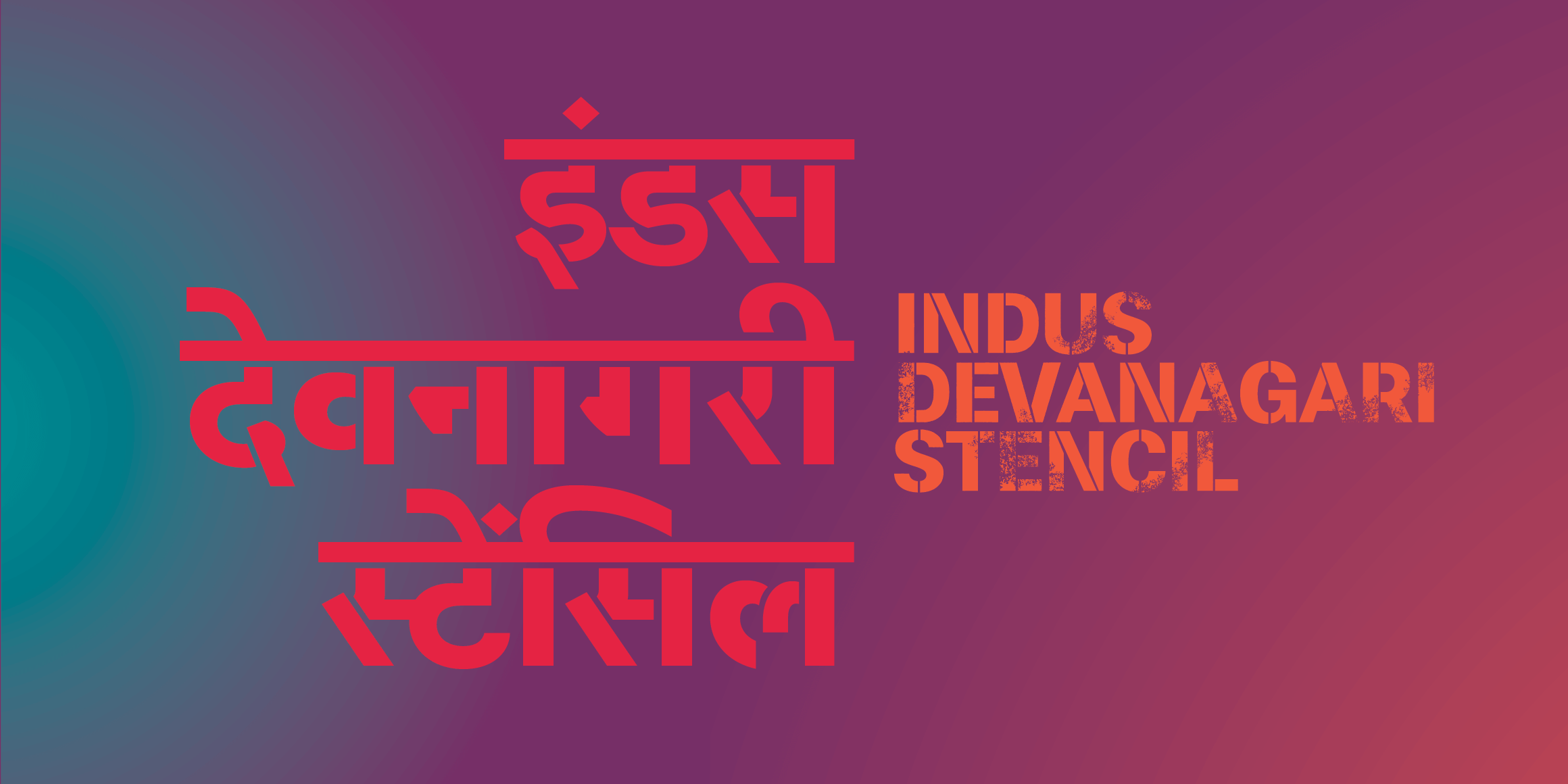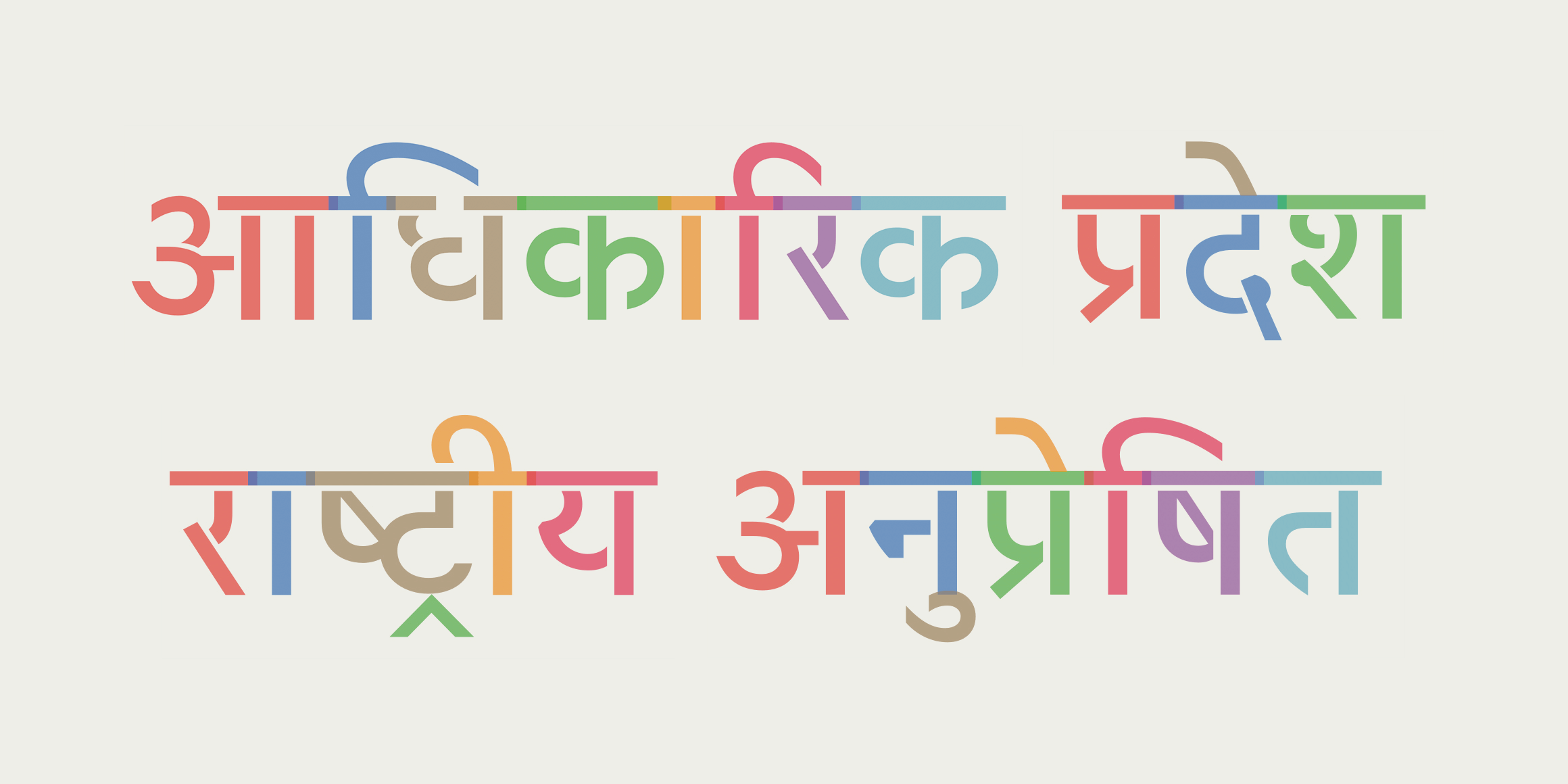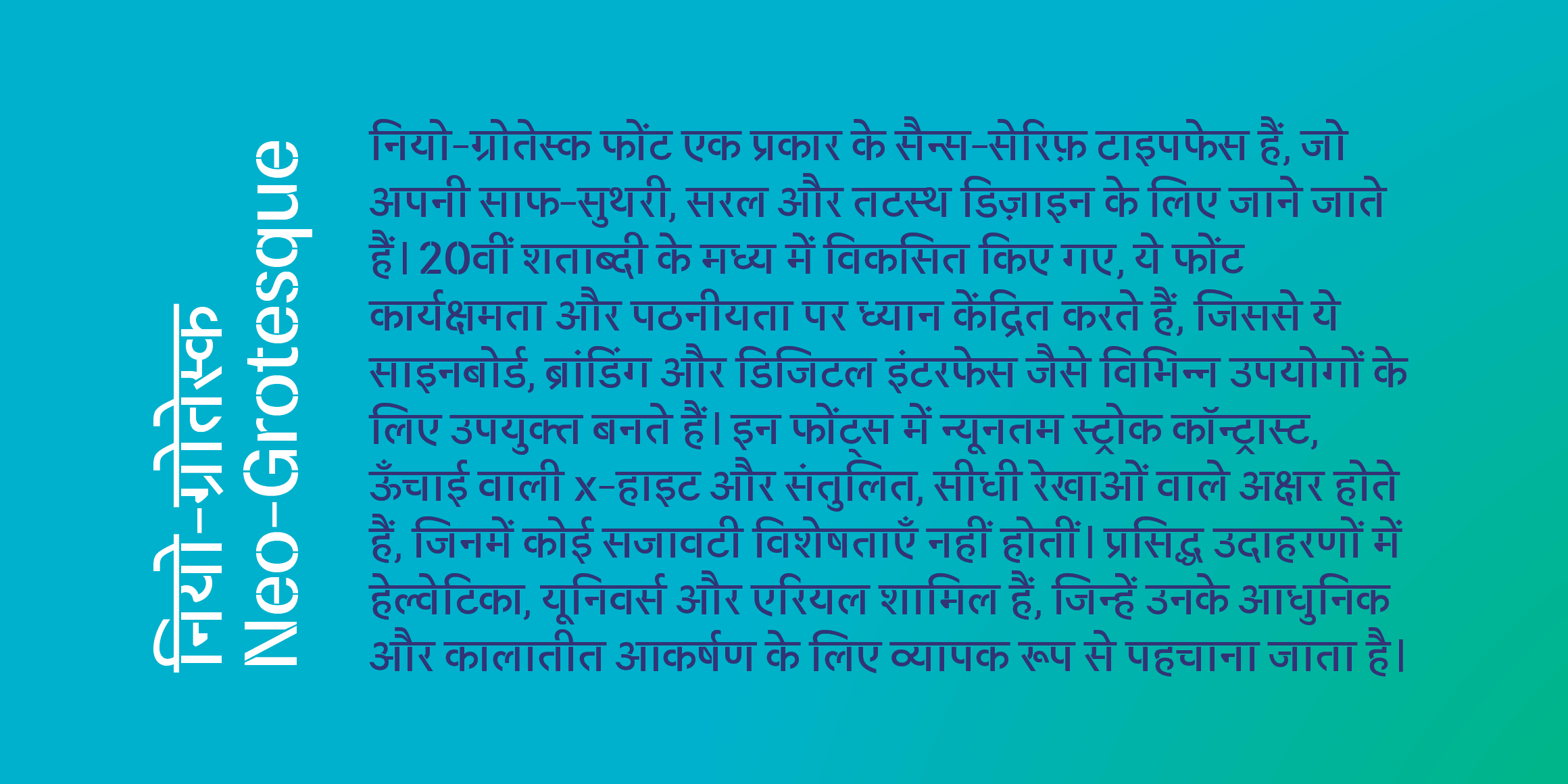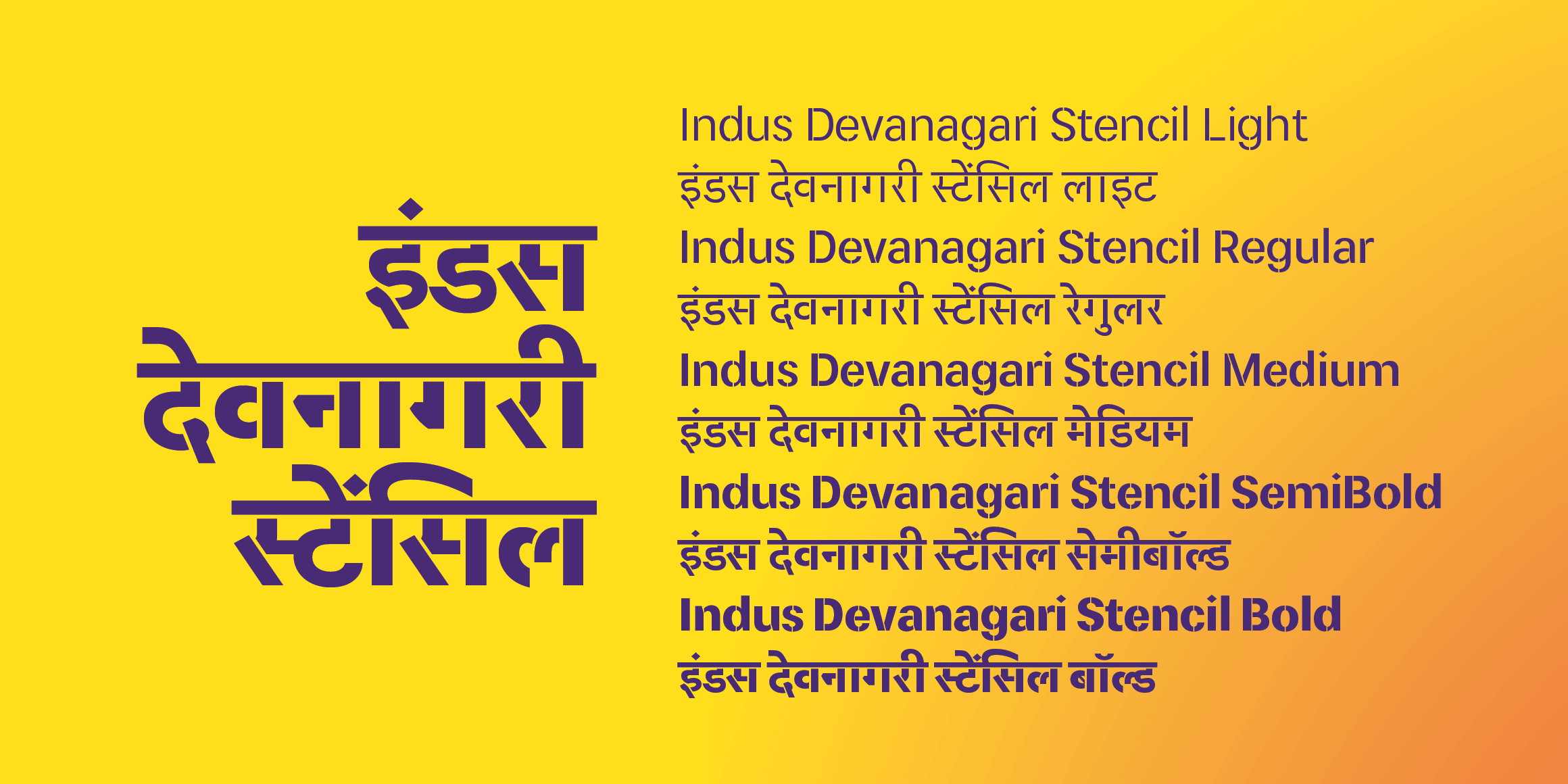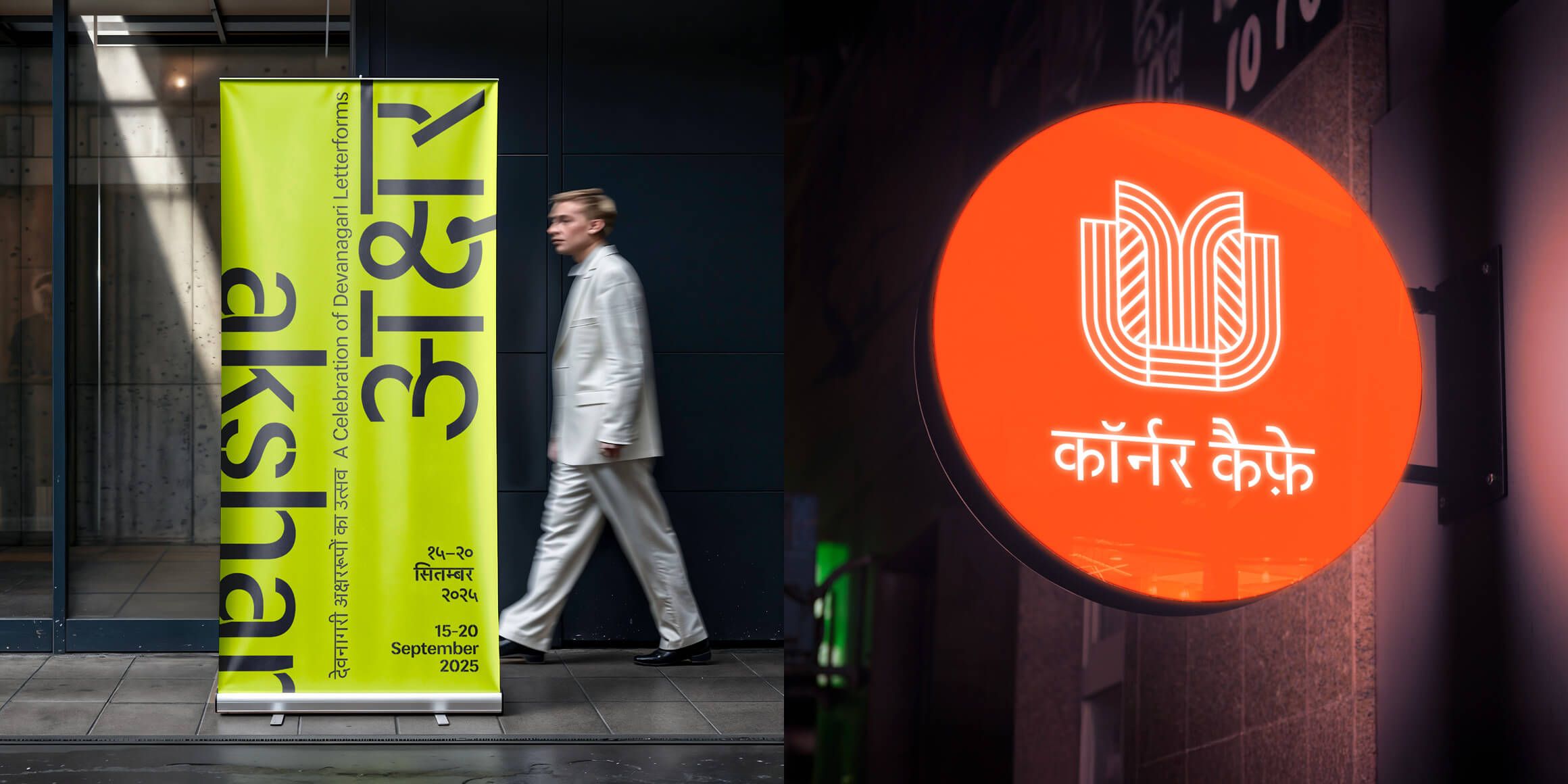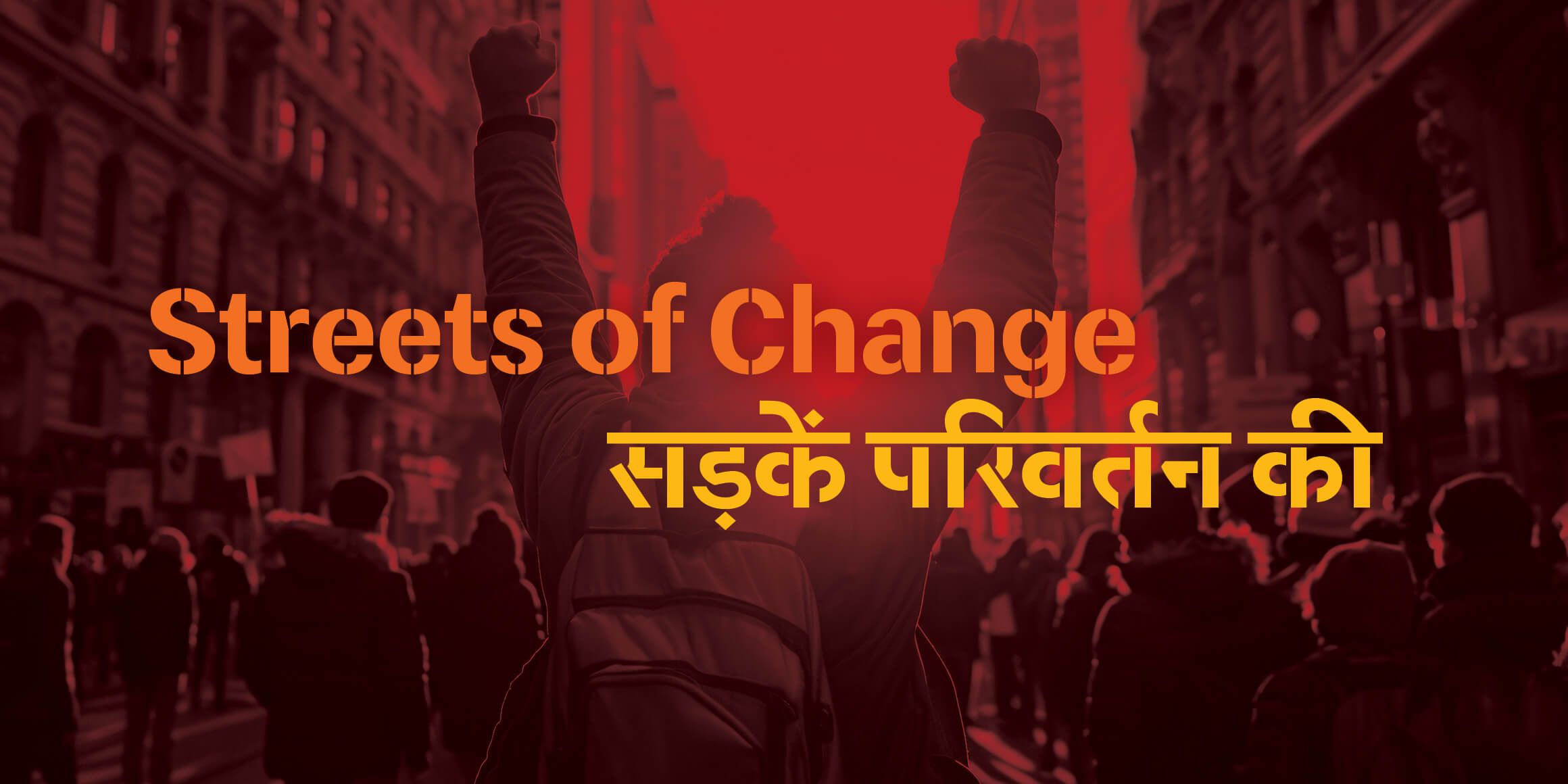
Indus देवनागरी Stencil
Indus Devanagari Stencil is the companion stencil style to the Indus Devanagari family introducing a dynamic and playful dimension to the overall family aesthetic.